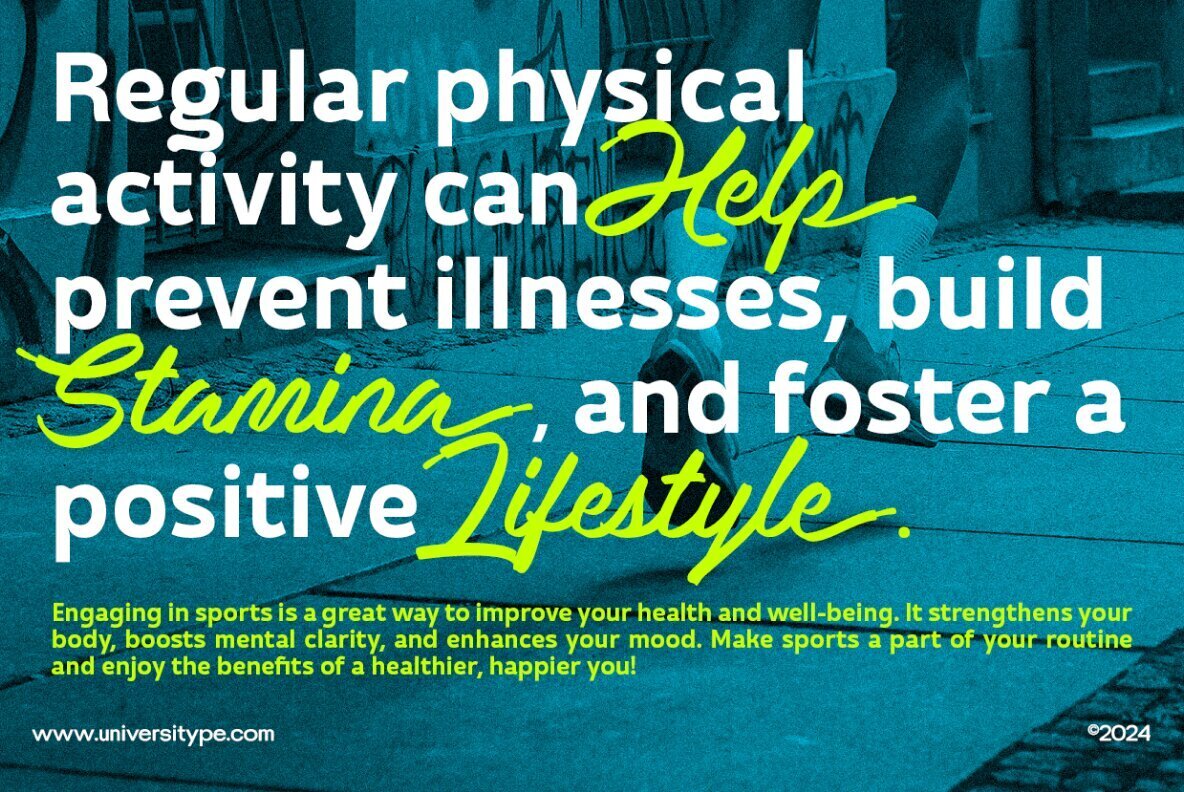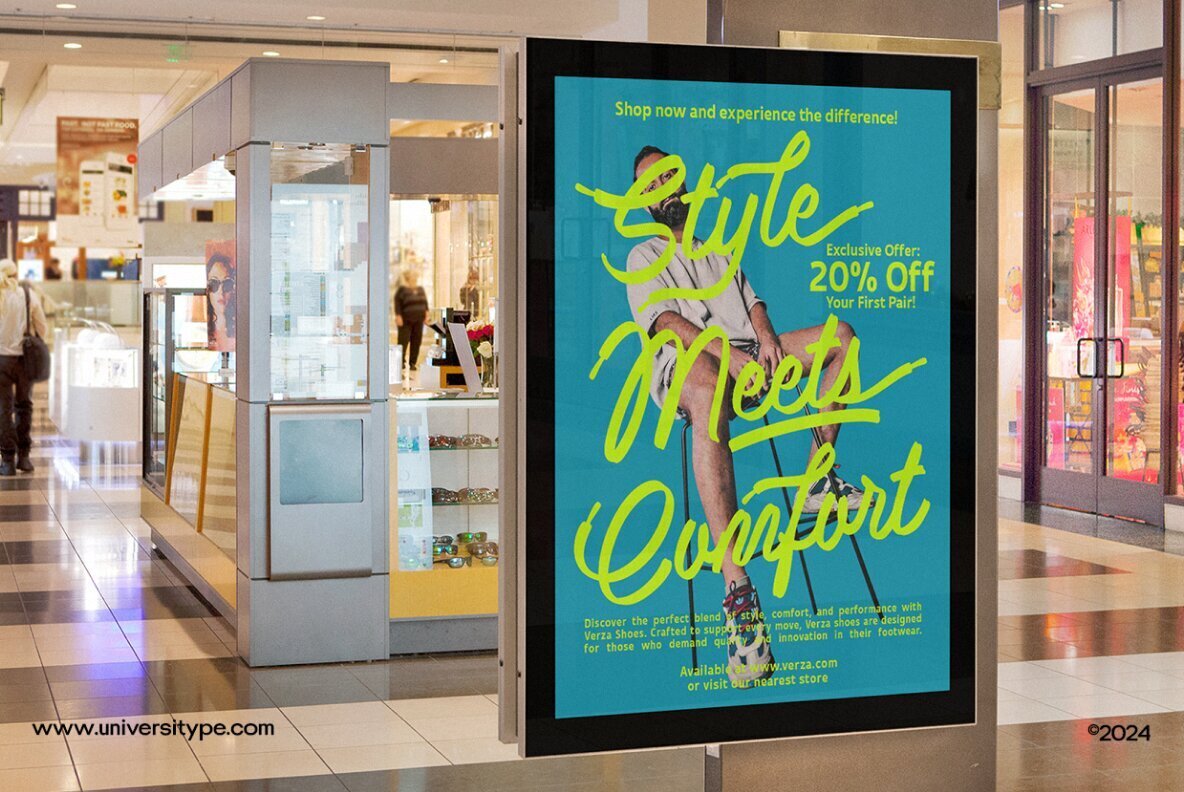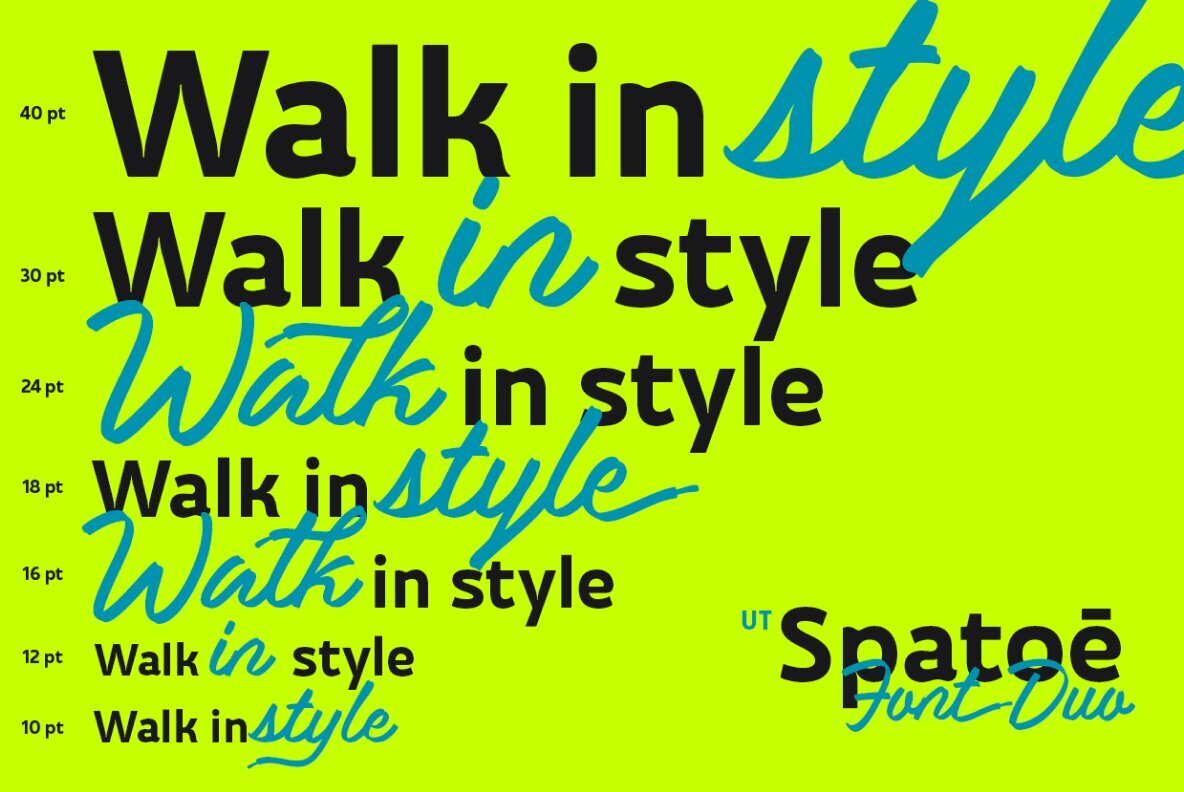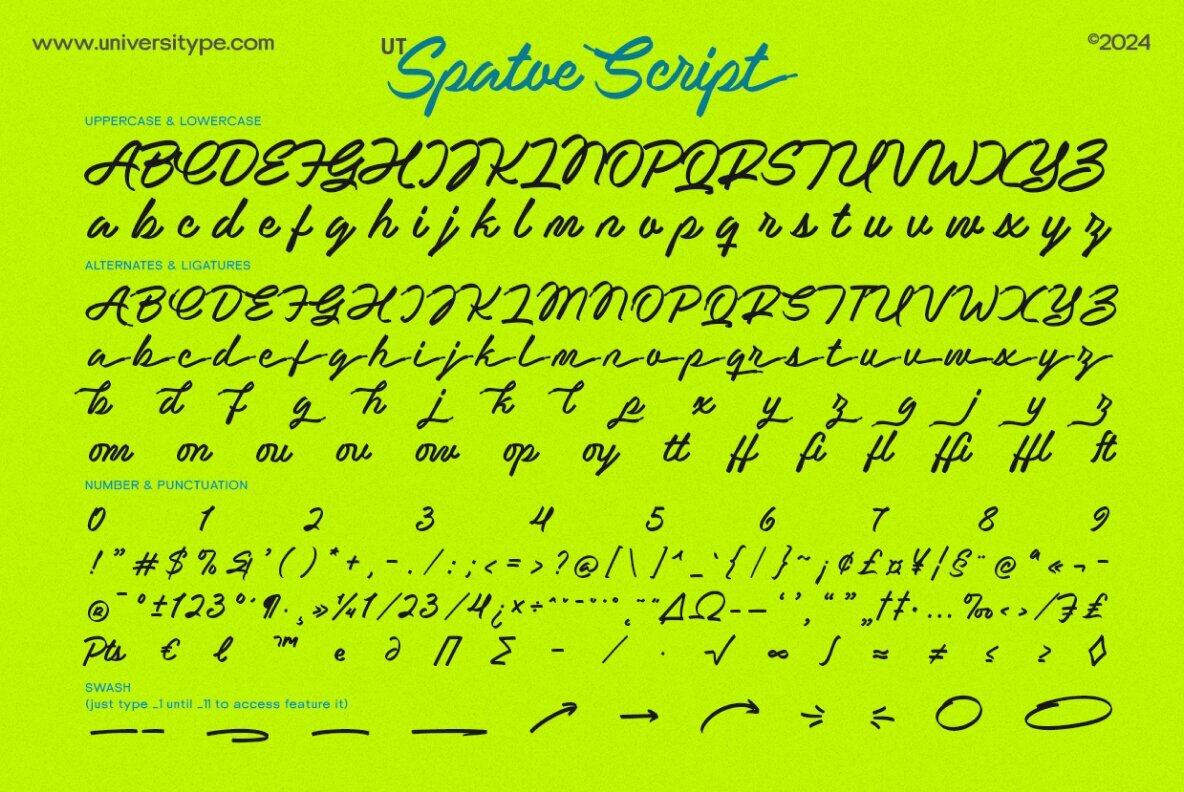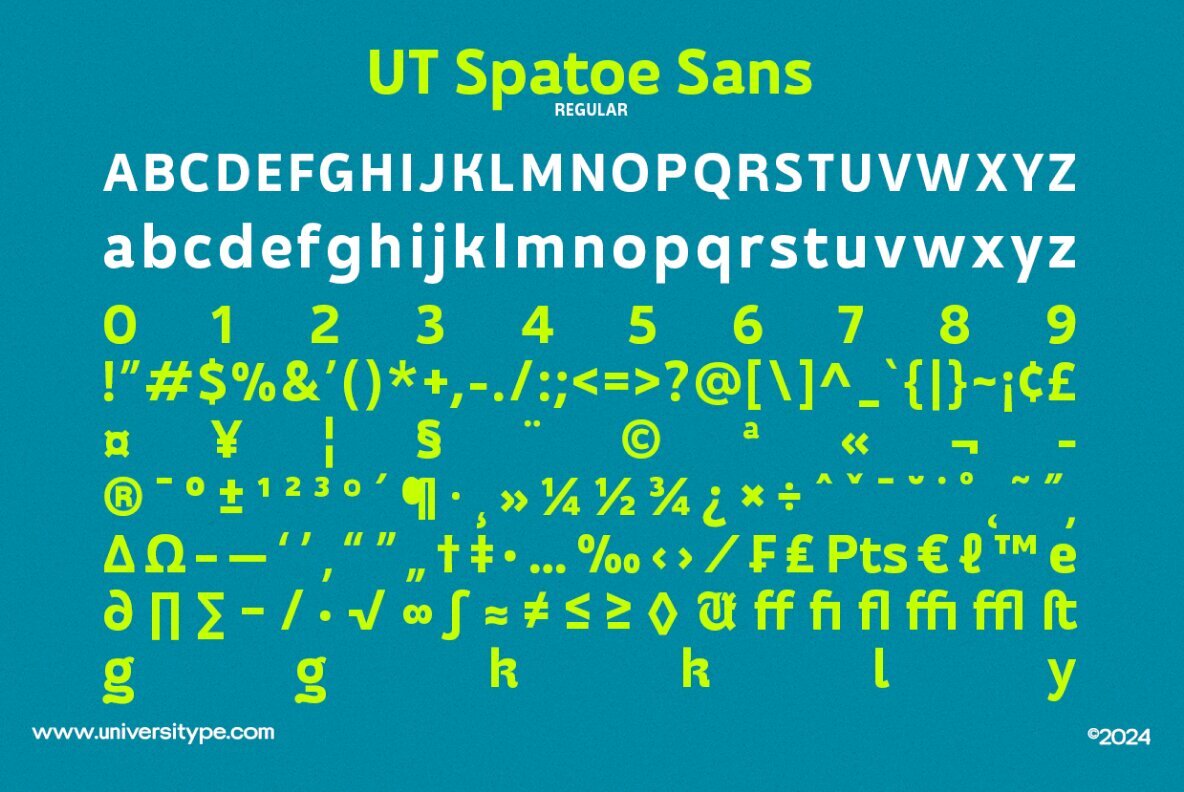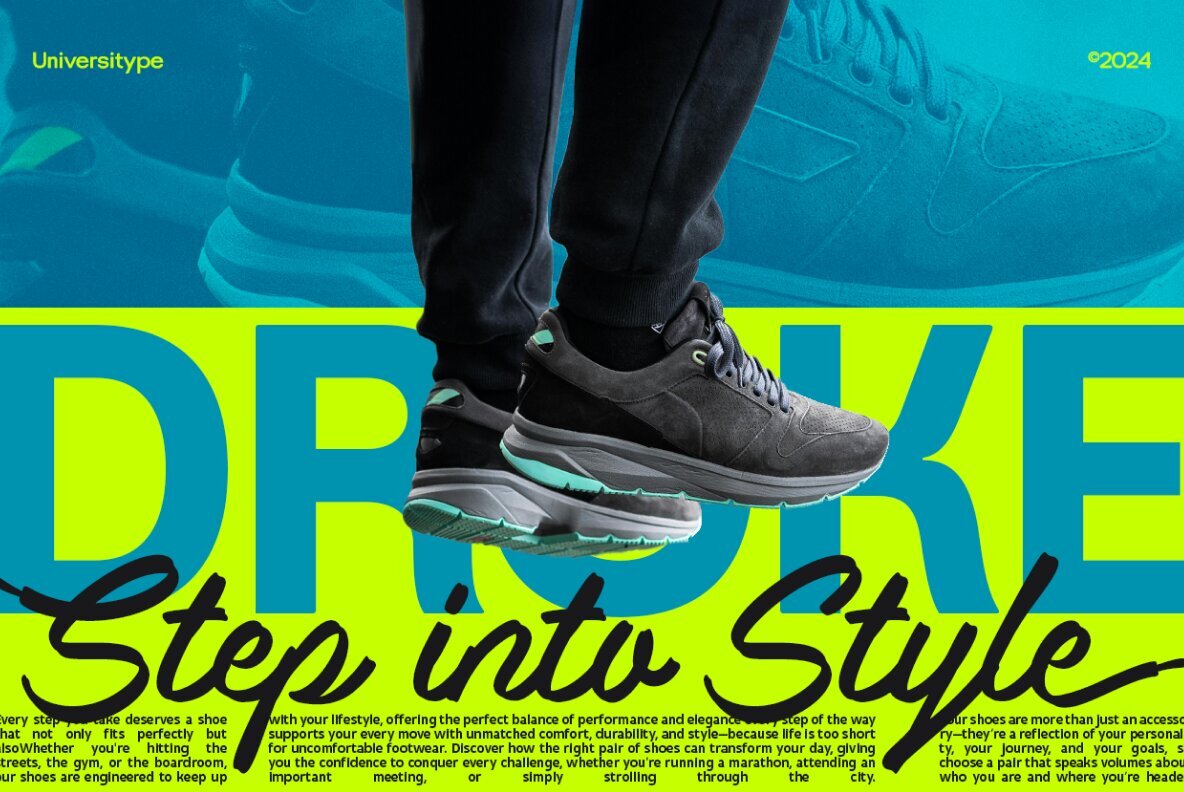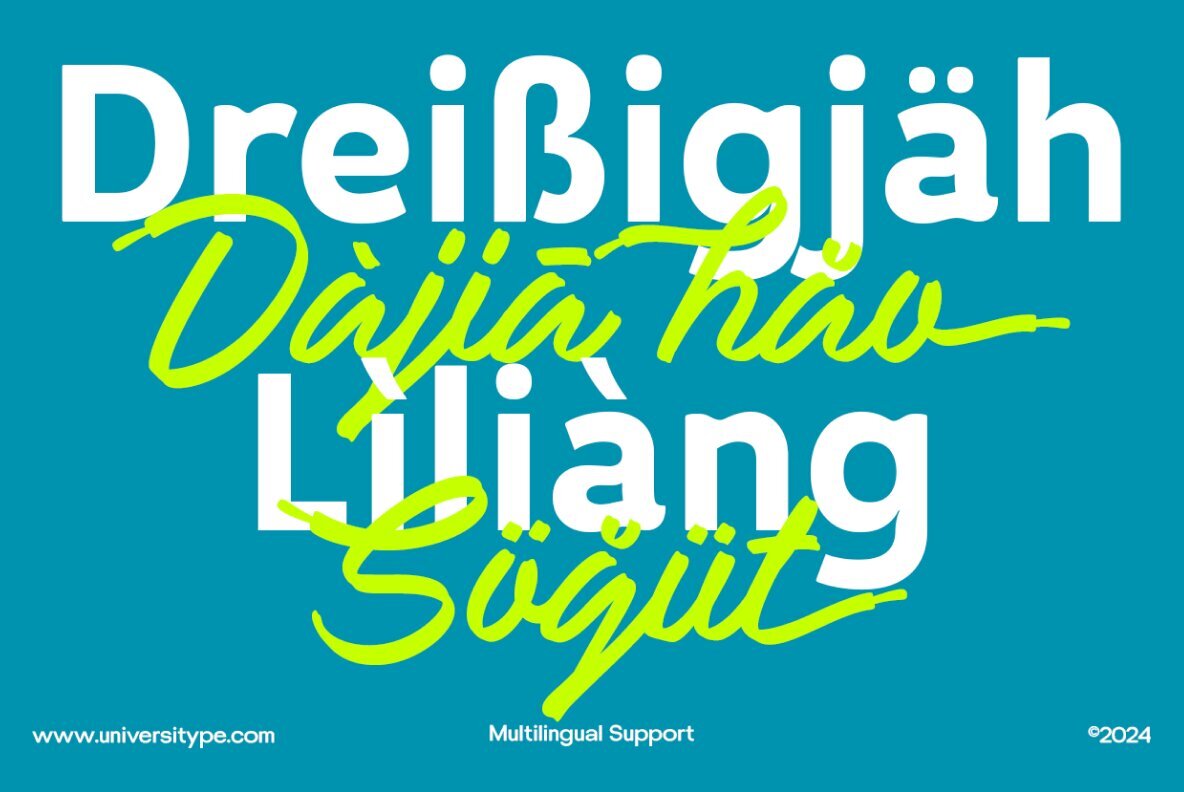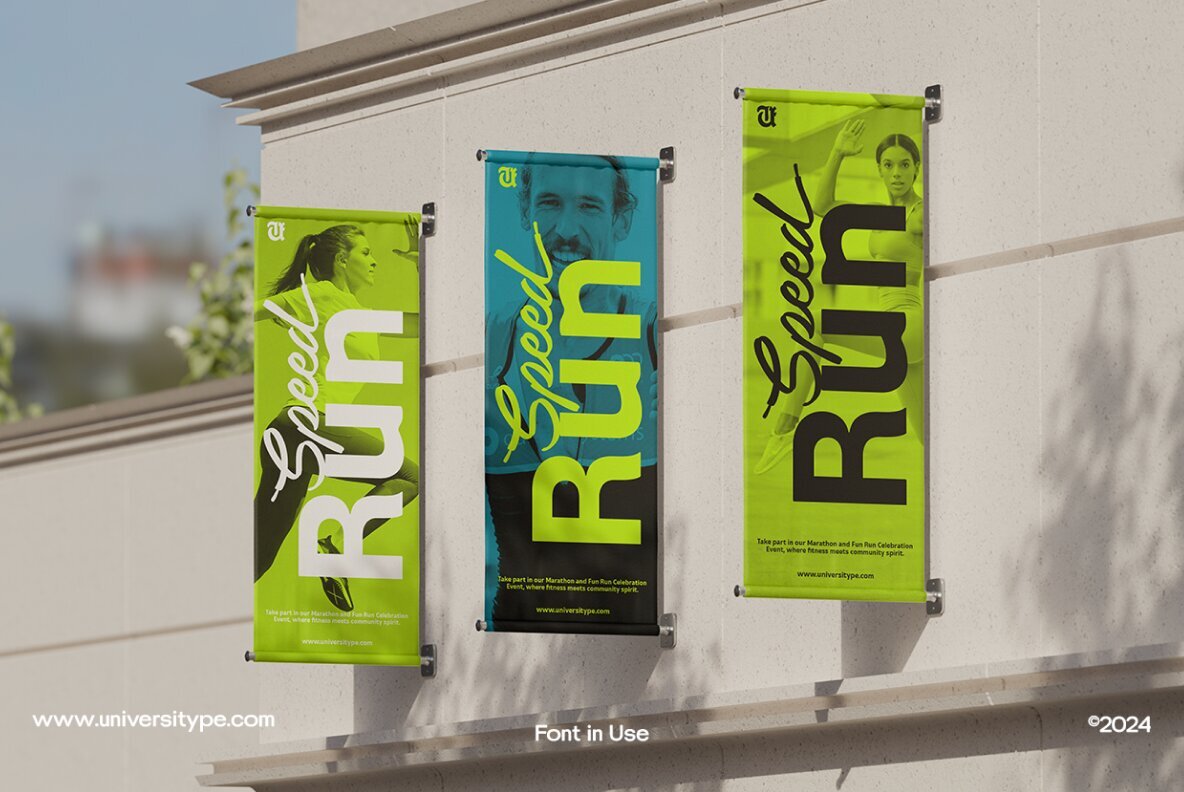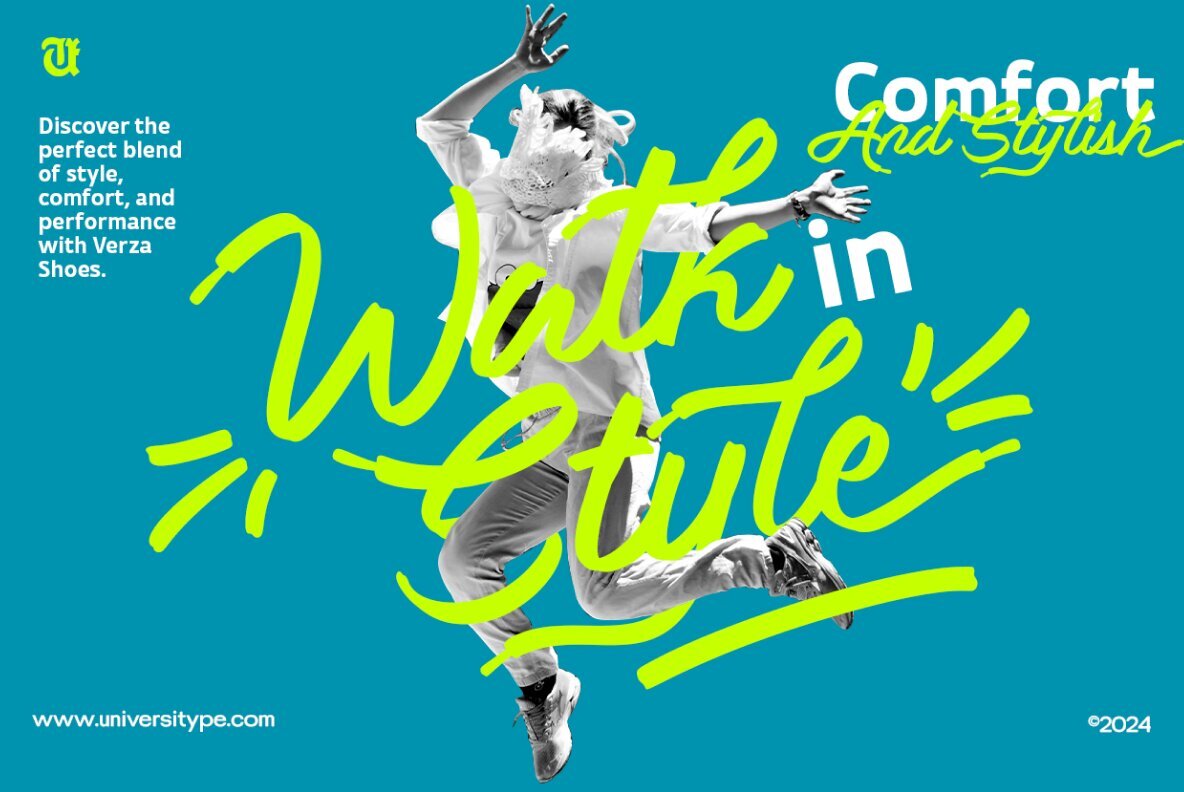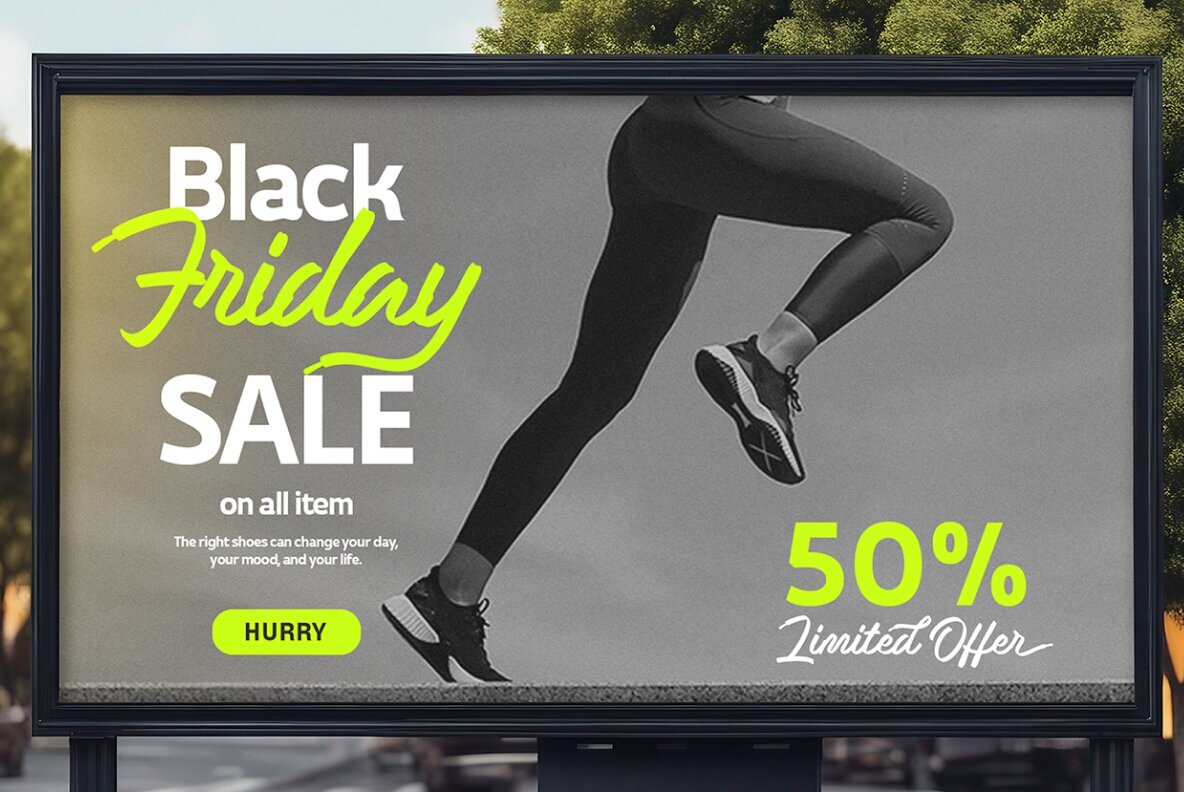
UT Spatoe Font
UT Spatoe Script Regular
UT Spatoe Sans Regular
Introducing UT Spatoe Font Duo, a distinctive font set that blends modern design with storytelling. UT Spatoe Sans draws inspiration from the clean, bold lines of a sneaker sole, offering a sleek, modern look, while UT Spatoe Script captures the organic, flowing nature of shoelaces, adding a personal and expressive touch. Together, they strike the perfect balance between technical precision and artistic creativity. This duo is ideal for designers, brand strategists, and creatives looking to infuse energy and personality into their projects. With features like versatility, legibility, and unique attributes inspired by sneakers, UT Spatoe brings both style and function to the table. Its customizable alternates, stylistic options, and ligatures provide a tailored design experience, while its smooth sans-serif and elegant script ensure clarity and readability in any setting. Whether you're working on branding, marketing materials, websites, or product packaging, UT Spatoe offers a modern, human touch that brings designs to life with flair and practicality.